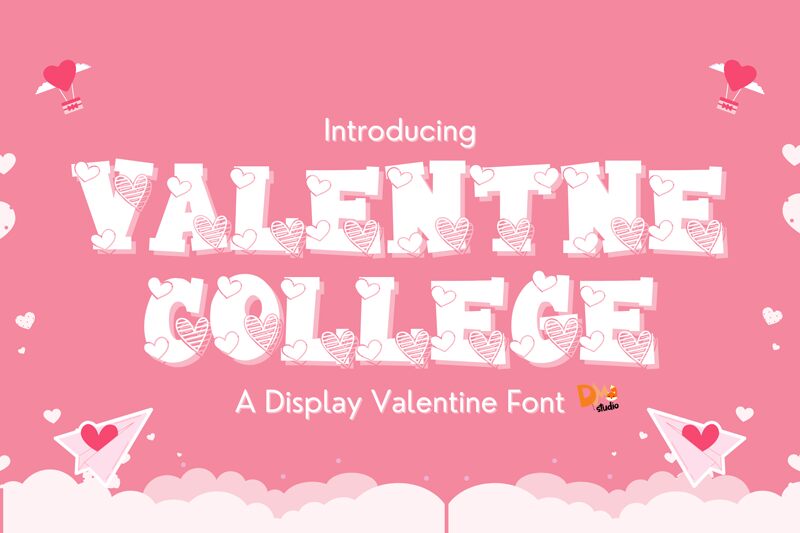
Valentine College
Valentine College font by DM Letter Studio - Dimas Prasetyo is a free decorative holiday typeface that turns bold varsity lettering into a love-struck collage. Chunky, collegiate-style capitals are packed with hearts and floral shapes, so each word looks like it’s been cut from a patterned scrapbook page. The dense black forms and playful inner texture give your titles a punchy, handmade feel that still reads clearly from a distance.
Using Valentine College font, you can instantly dress up Valentine’s cards, classroom bulletin boards, party invitations, social media posts, gift tags, or fun merch like tote bags and tees. This free font shines in big, loud headings; pair it with a simple sans serif in a smaller size to keep supporting text clean and easy to read.